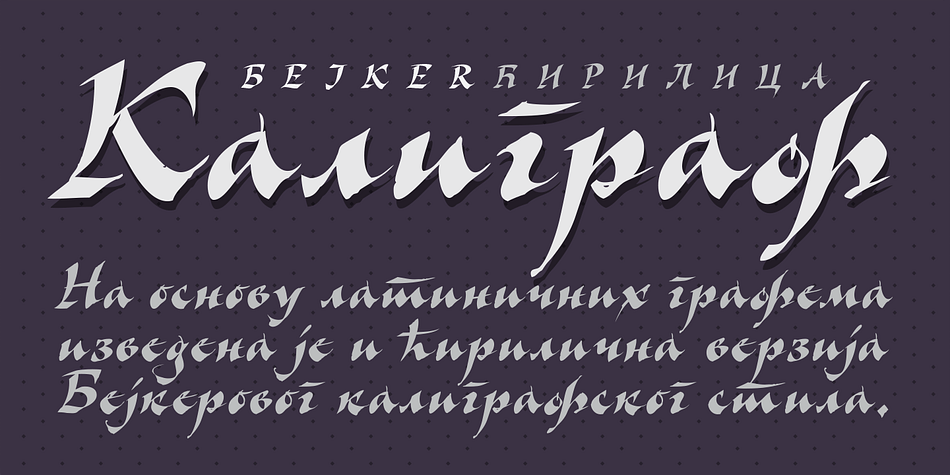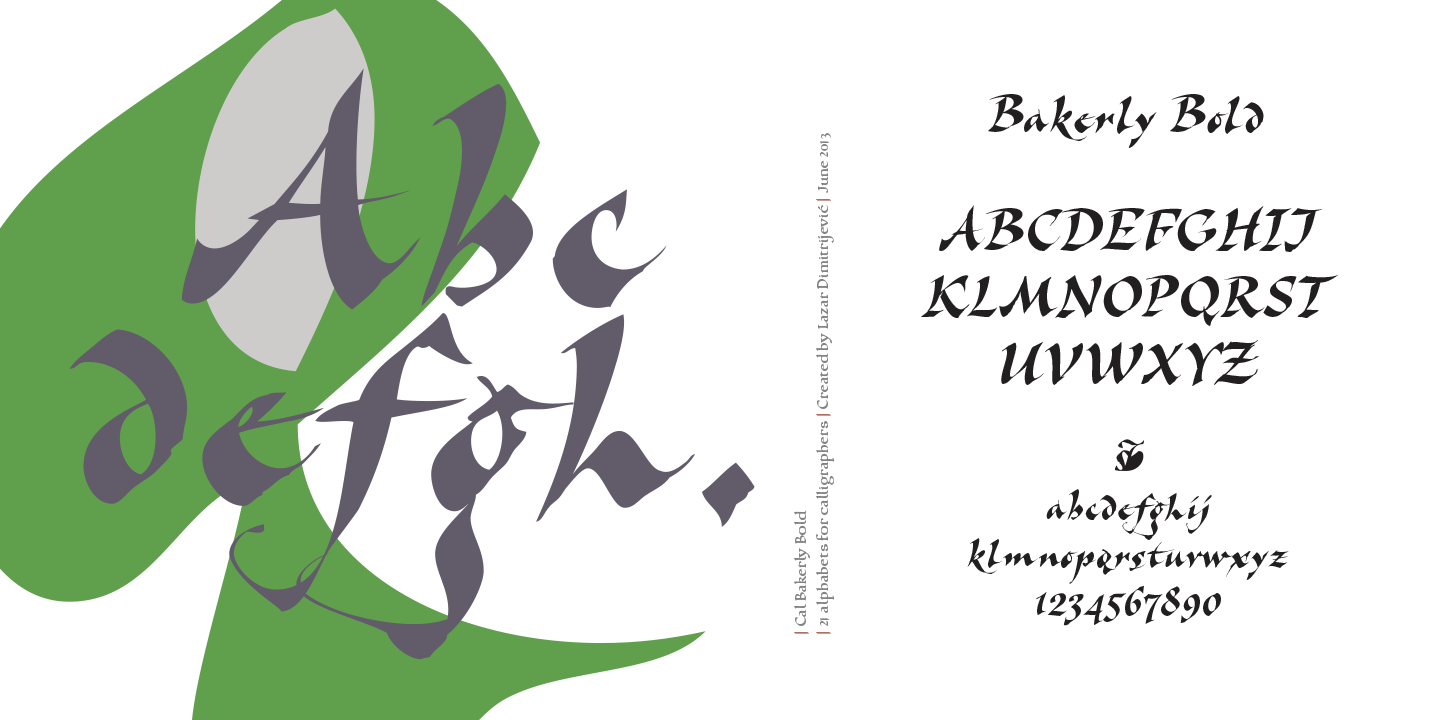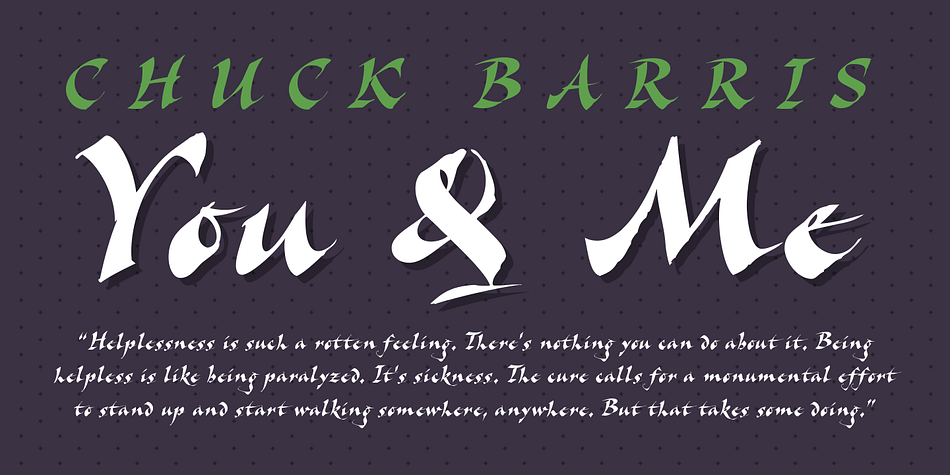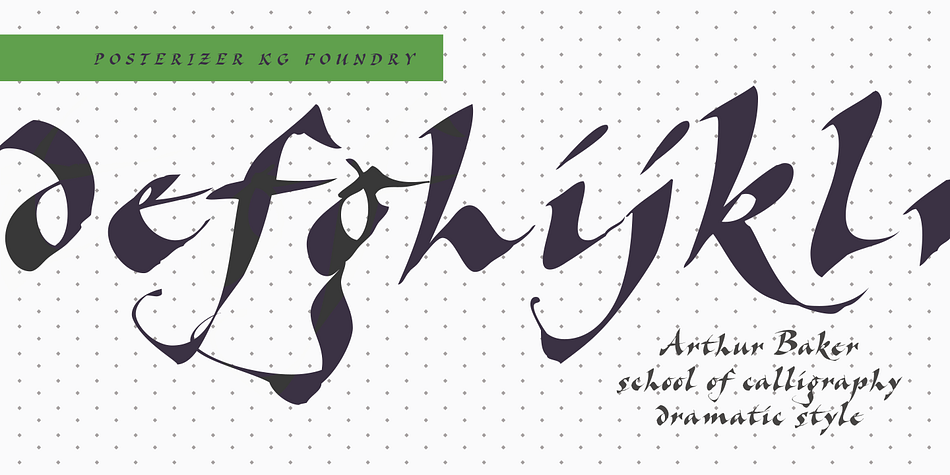
Cal Bakerly is a historical and brush script font published by Posterizer KG.
Cal Bakerly is part of the calligraphic group of fonts called “21 alphabets for Calligraphers“. All graphemes are taken from calligraphic pages written in Arthur Baker’s calligraphic style.
This font is ideal for calligraphic sketches or for imitation of ancient manuscripts. Contains all the Latin and Cyrillic glyphs.